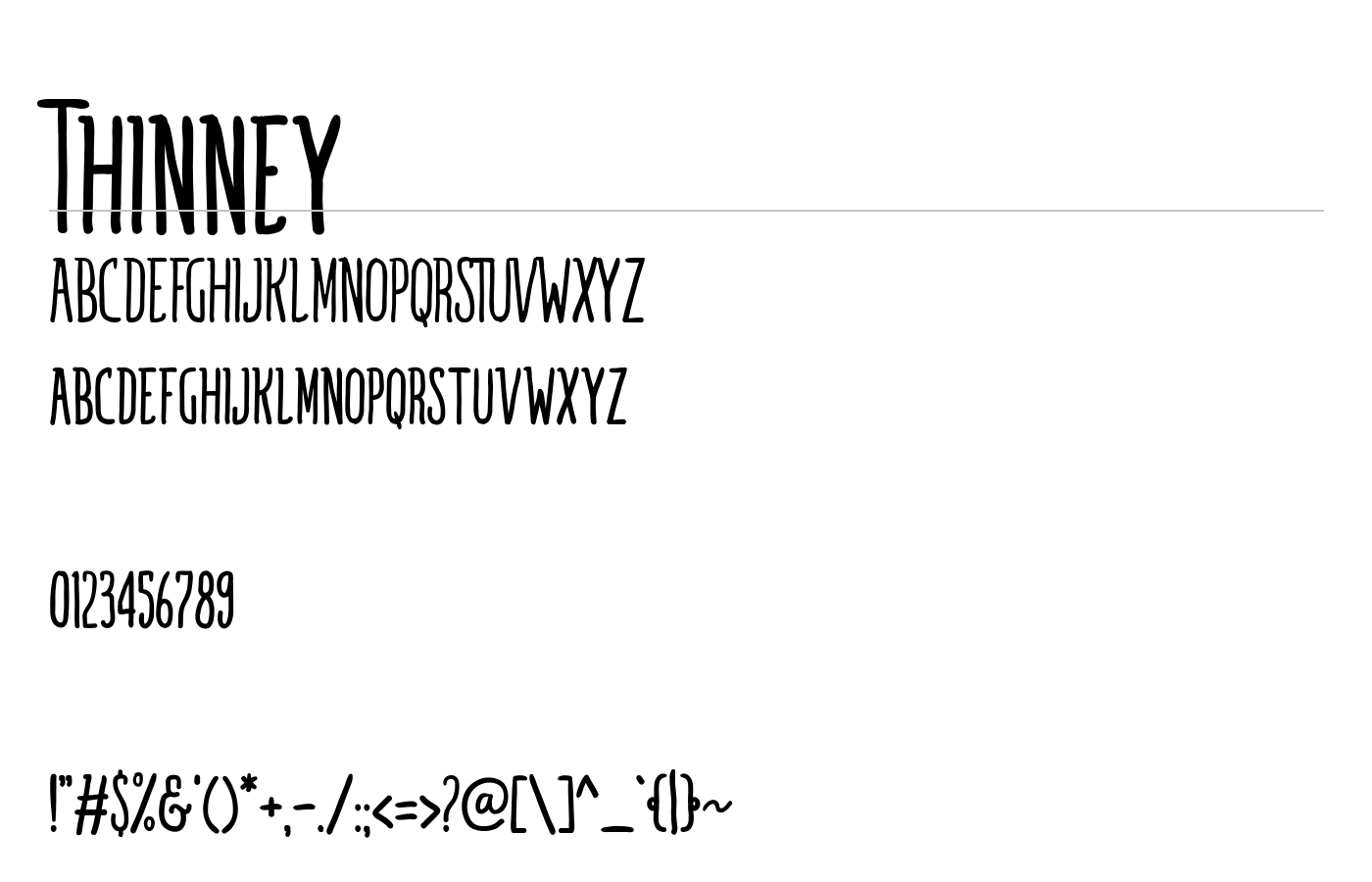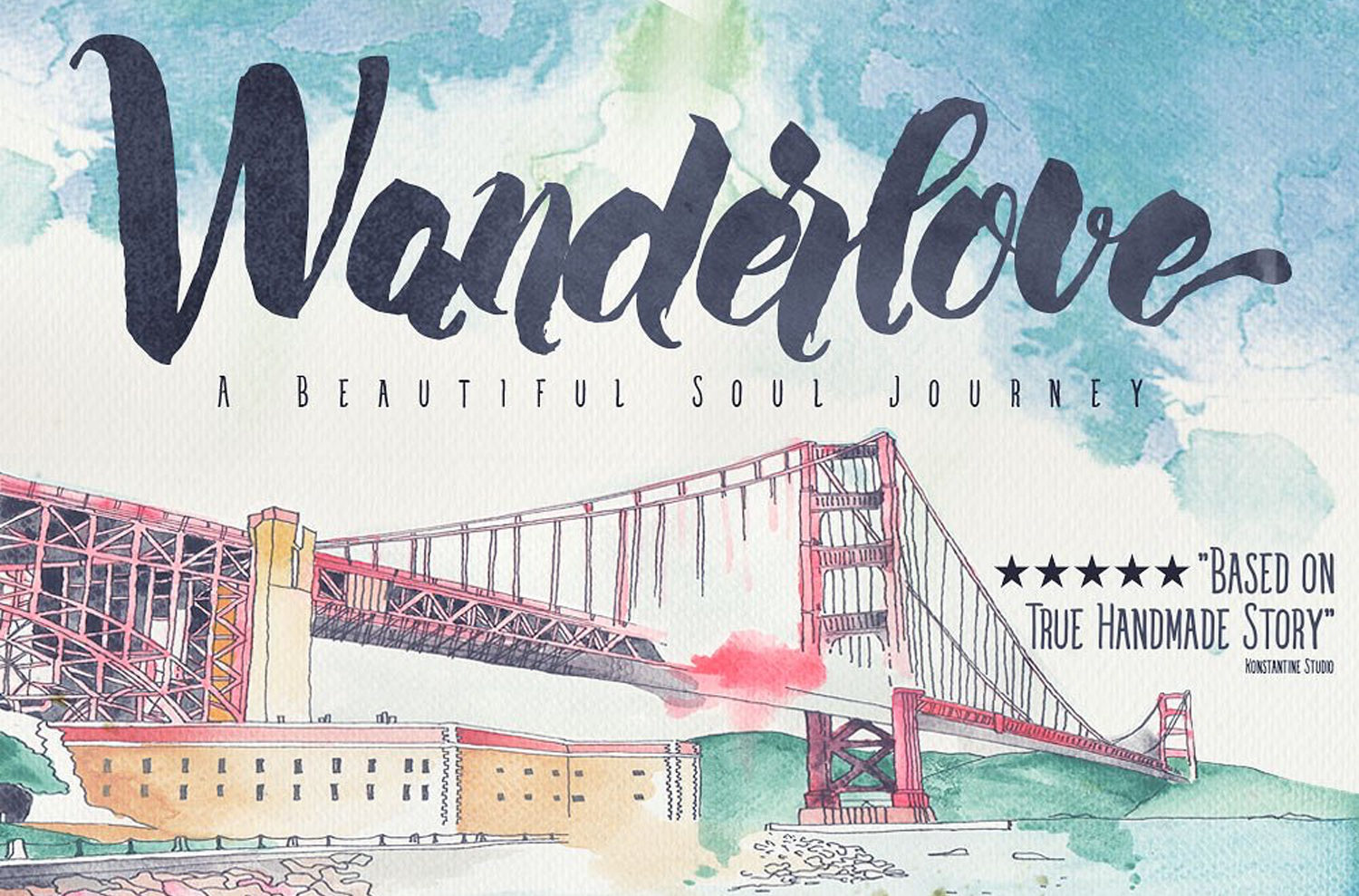
Wanderlove Script Thinney is a slender, playful sans serif font with a hand-drawn feel, characterized by tall, narrow letterforms and smooth, rounded edges. Its casual and slightly quirky style lends a friendly, approachable vibe perfect for creative branding, whimsical logos, and lighthearted editorial uses where a unique, personal touch is desired. This font shines best in headlines or display text, adding charm and warmth without overwhelming the design.